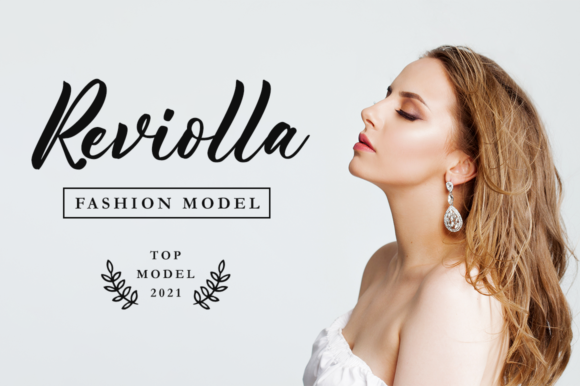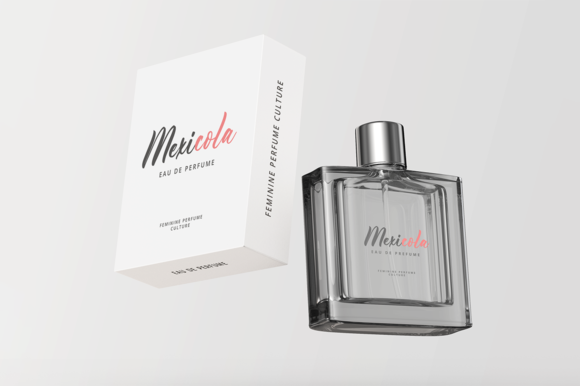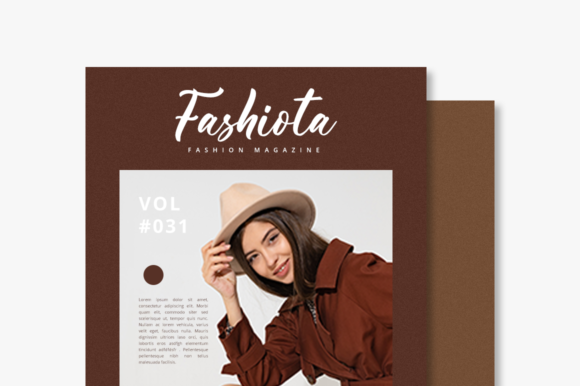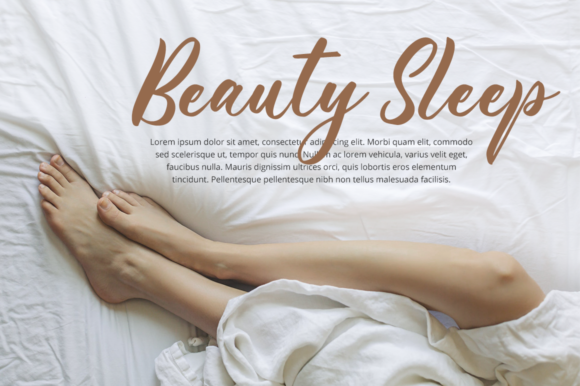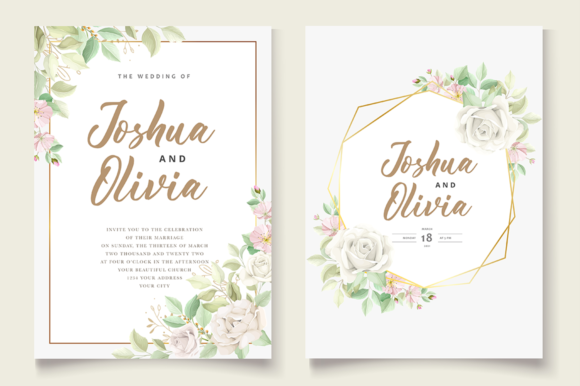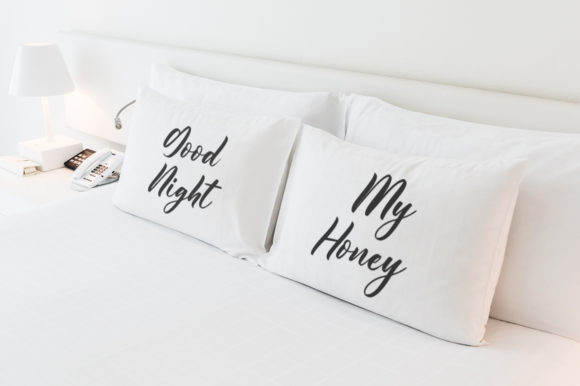
The Fabiolla Font: A Romantic and Sweet Calligraphy Typeface
Have you ever been in the middle of a design project, and suddenly, you just can’t seem to find the right font? I recall a particularly frustrating experience while working on a wedding invitation design. My client wanted something elegant, yet casual, and I was determined to deliver. That’s when I stumbled upon the Fabiolla font, a romantic and sweet calligraphy typeface that has since become one of my go-to fonts for various design projects.
A Personal Review of Fabiolla Font
So, what makes Fabiolla font so special? Here are a few things I love about it:
- ✨ Romantic and sweet calligraphy style with characters that dance along the baseline
- ✅ Casual, yet elegant touch that’s perfect for a variety of design projects
- 💕 Highly versatile and can be used for logos, wedding invitations, headings, t-shirts, letterhead, signage, labels, news, posters, badges, and more
- 🎨 Beautifully crafted with attention to detail, making it perfect for designs that require a personal touch
While Fabiolla font is amazing, it’s not perfect. Here are a few small quirks or limitations to keep in mind:
- 🤔 Limited availability of certain characters or glyphs, which may require some creative workarounds
- ⚠️ May not be suitable for very small font sizes or body text, as it can become difficult to read
The Backstory of Fabiolla Font
Fabiolla font was designed with the intention of creating a romantic and sweet calligraphy typeface that’s perfect for a variety of design projects. The designer aimed to craft a font that’s both elegant and casual, making it suitable for designs that require a personal touch. While the designer’s background and inspiration are not publicly known, it’s clear that Fabiolla font was created with love and attention to detail.
| What is Fabiolla font? | Fabiolla font is a romantic and sweet calligraphy typeface with characters that dance along the baseline. |
| What can I use Fabiolla font for? | Fabiolla font can be used for various purposes such as logos, wedding invitations, headings, t-shirts, letterhead, signage, labels, news, posters, badges, and more. |
| Is Fabiolla font easy to read? | Fabiolla font is generally easy to read, but may not be suitable for very small font sizes or body text. |